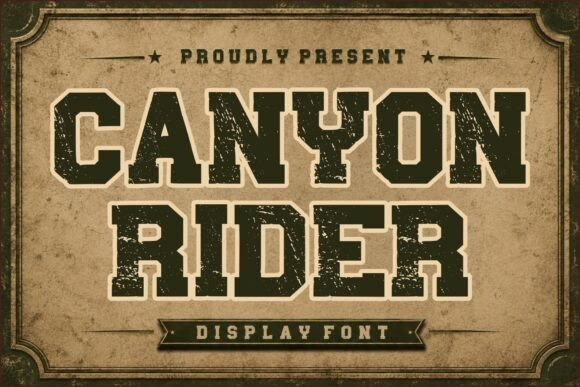
Canyon Rider Font
Canyon Rider Font is a bold vintage western display font inspired by classic cowboy posters, old saloon signage, rodeo advertisements, and rustic Americana typography. Featuring strong slab serif letterforms combined with authentic distressed details, this typeface delivers a rugged handcrafted appearance that instantly evokes the spirit of the Wild West.
Perfect for logos, packaging, labels, posters, apparel, signage, book covers, and branding projects that require a bold vintage character and timeless western charm.